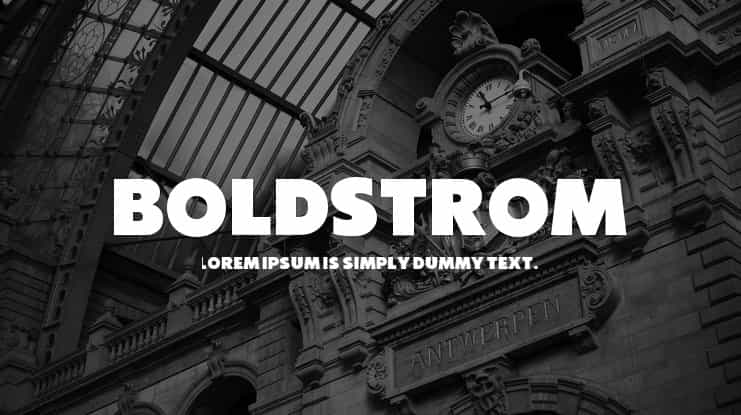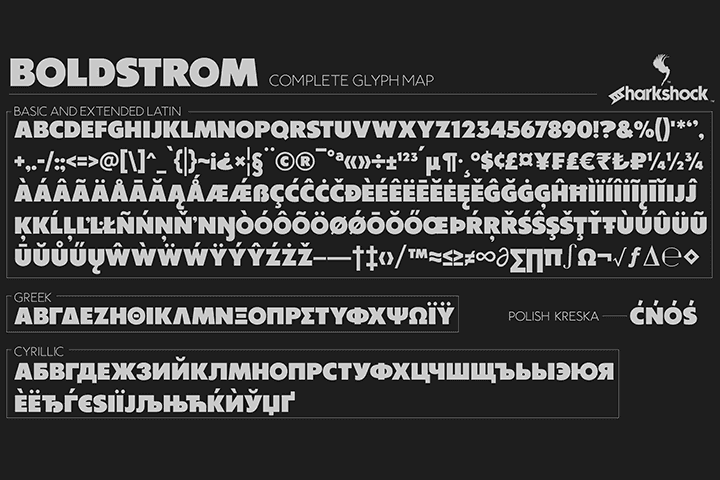
Boldstrom is a bold and pragmatic display font. Perfect for quotes, Vlogger previews, logotype designs, fashion web banners, musician song promotion, cafe or restaurant promotions and much more, Boldstrom will make your idea absolutelly stand out! Integrate this font into your creativity for the enhanced creativity and notice the results of its impact!